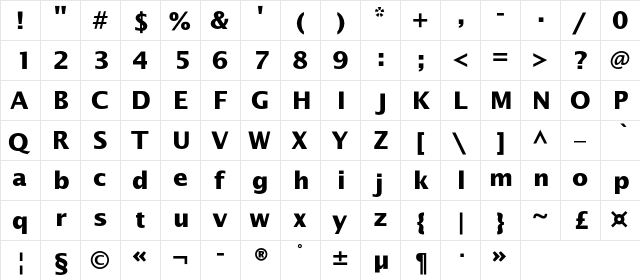
OfficeTypeSansC Bold
Design Context for OfficeTypeSansC Typeface
OfficeTypeSansC takes a measured approach to typography — its balanced proportions and neutral character make it a reliable workhorse for both digital and print work. The heavy weight commands attention and anchors typographic hierarchies.